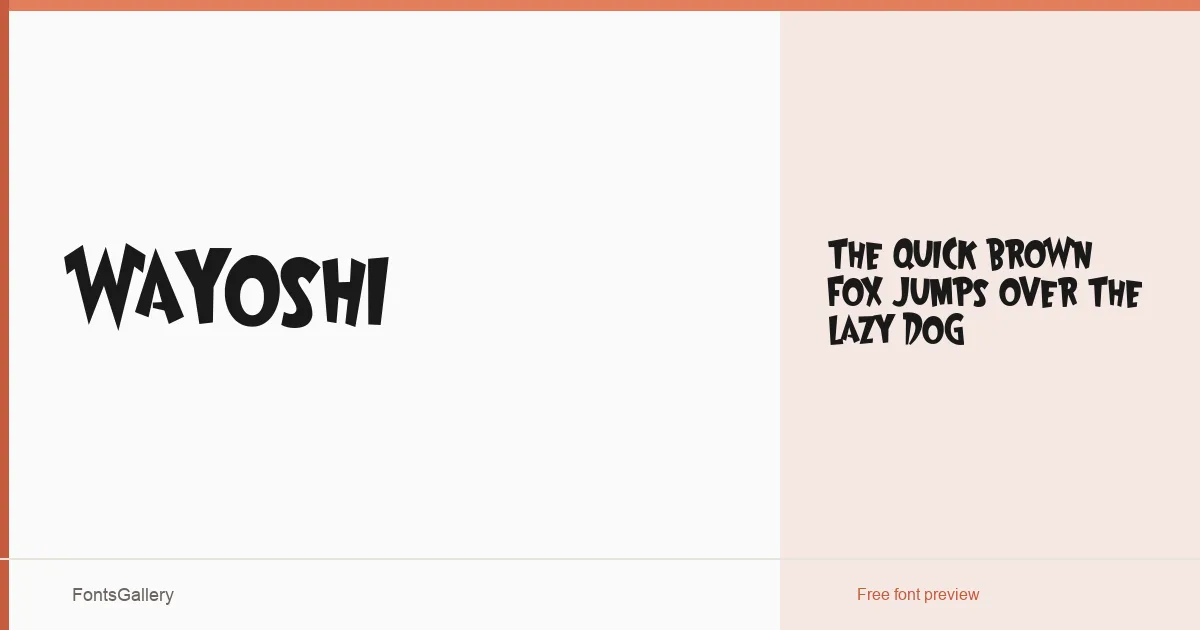
About Wayoshi Font
Wayoshi is a display typeface created by designer and foundry tymime. It brings together a bold, whimsical energy with grunge-infused character, making it a distinctive choice for projects that demand visual impact and personality. Its playful nature ensures it stands out wherever attention-grabbing typography is needed.
Wayoshi's letterforms are defined by a bold, expressive weight combined with whimsical, grunge-influenced details that give each character a raw and lively feel. The playful irregularities in its design add a sense of spontaneity and fun, while the grunge undertones keep it edgy and memorable. This balance makes it a versatile display face that can feel both youthful and boldly unconventional.
Wayoshi is best suited for high-impact applications such as logos, posters, branding projects, T-shirt designs, and children's books, where its bold and playful character can truly shine. It works exceptionally well as a headline or focal element where personality is a priority. For a clean contrast, consider pairing Wayoshi with Helvetica for a modern balance, or with Aresink for a complementary expressive combination.